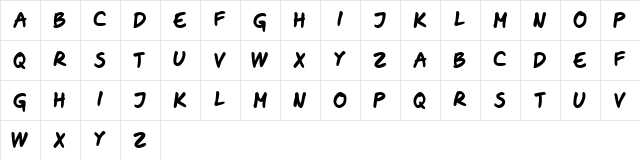
Diana Book Regular
Design Context for Diana Book Typeface
Diana Book is a composed and adaptable typeface that performs quietly and consistently across a wide range of design contexts.
Pro Tip: Use Diana Book in both headline and body roles to test its range before committing to a single application.